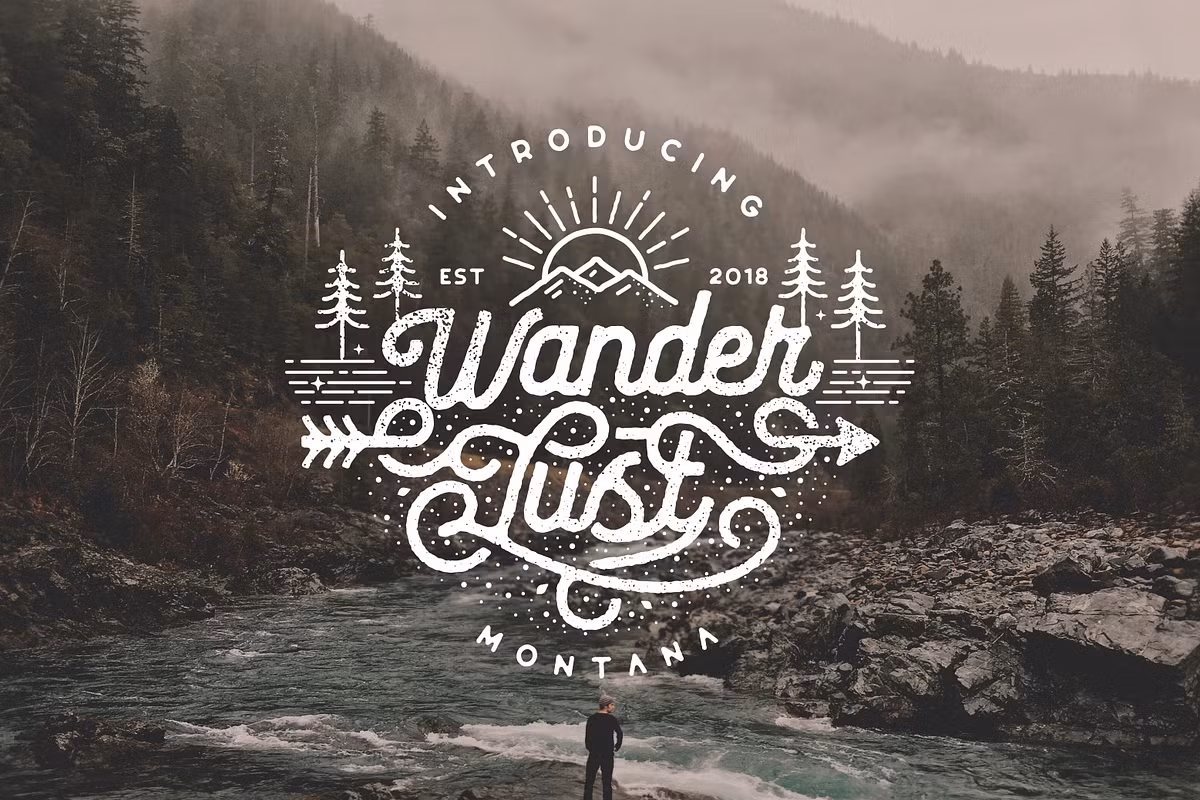
Riverfall Semi Rounded Textured Font Free Download
Riverfall Semi Rounded Textured Font Free Download is a unique and stylish font that combines a semi-rounded structure with a textured finish. Its soft edges and distinctive texture make it ideal for creating designs with a relaxed, vintage, or rustic vibe. Whether you're working on logos, branding, social media posts, posters, or packaging, Riverfall adds character and personality to your typography.
The font’s textured effect enhances the rustic charm, while the semi-rounded edges provide a modern and approachable look. This makes it versatile for both casual and professional applications, giving your designs a distinctive, hand-crafted appeal.